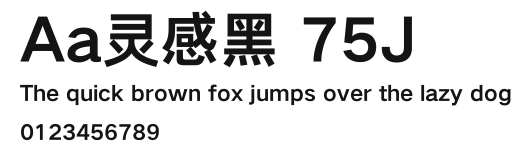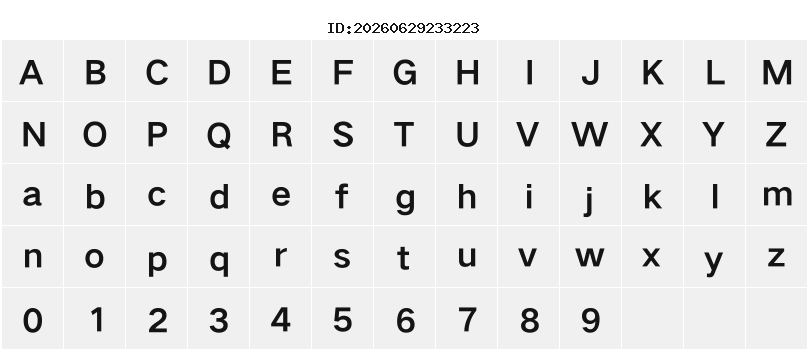
• Font Name: Aa灵感黑 75J
• Full Font Name: Aa灵感黑 75J
About Aa灵感黑 75J.ttf
Aa灵感黑 75J.ttf is a modern, elegant sans-serif font designed for ultimate readability and visual harmony. Perfect for branding, headlines, web design, and print materials.